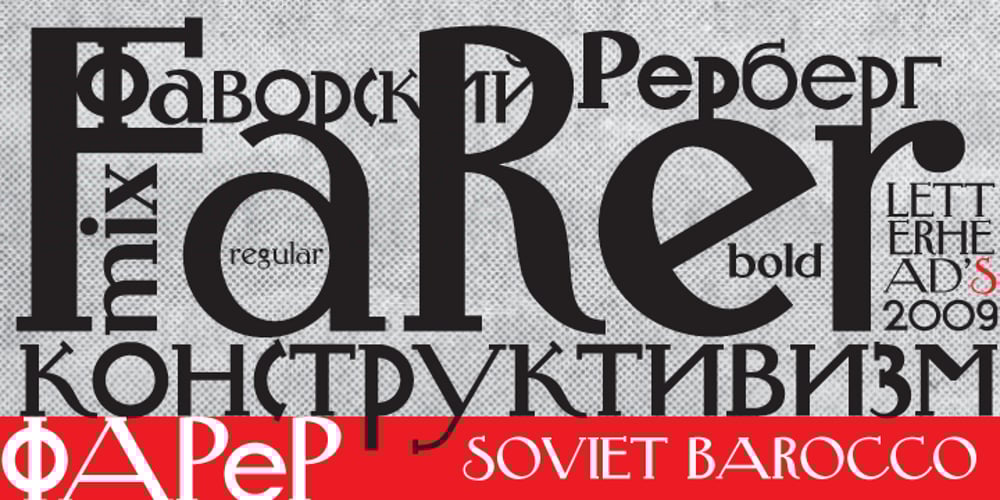
FaRer Font Family was designed by Yuri Gordon and published by Letterhead Studio-YG. FaRer contains 2 styles and family package options. The FaRer family was originally made in 1997. The OpenType revision, with extended Latin characters, was made in 2009.